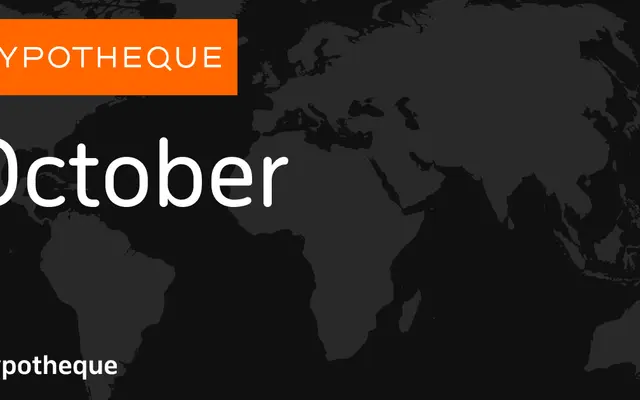
October
A systematic grotesque family from Typotheque spanning nine weights across standard, condensed and compressed widths, with a variable font option.
A thorough grotesque sans covering nine weights from Hairline to Black, each with matching italics, across three width variants: October, October Condensed and October Compressed. The full variable font version consolidates the family into a single file for flexible deployment. City names from Amsterdam to Reykjavík label each style, suggesting a cosmopolitan editorial sensibility.
October presents as a contemporary grotesque sans-serif with a wide weight range and extended width variants, consistent with the grotesque tradition of neutral, systematic letterforms suited to editorial and branding applications.